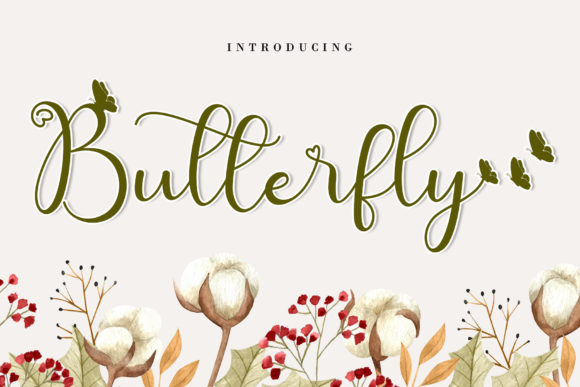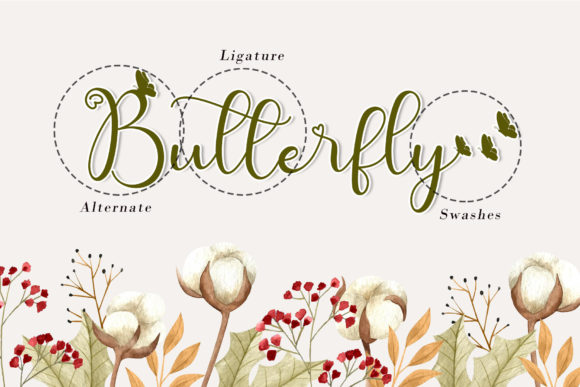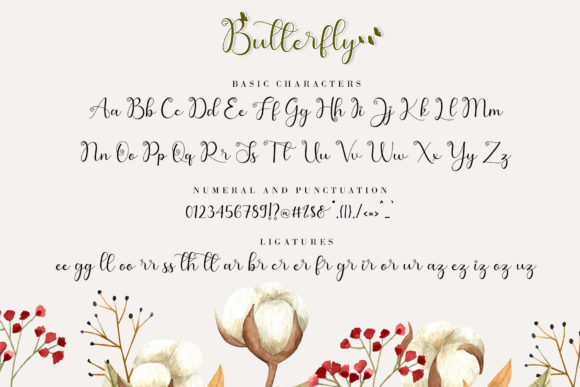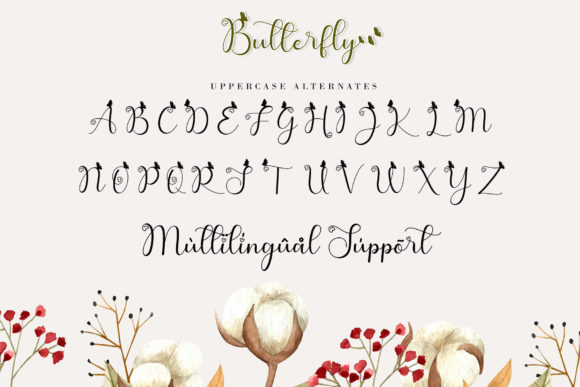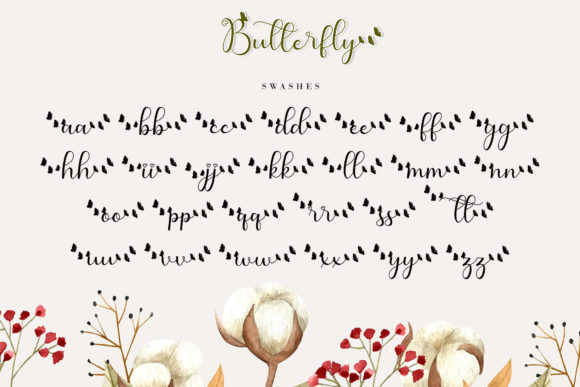
About Cute Butterfly Font
Cute Butterfly is a beautiful script font with a romantic theme, featuring lovely ornaments. Fall in love with its authentic feel and use it to create gorgeous wedding invitations, beautiful stationary art, eye-catching social media posts, and cute greeting cards. It is PUA encoded which means you can access all of the glyphs and swashes with ease!